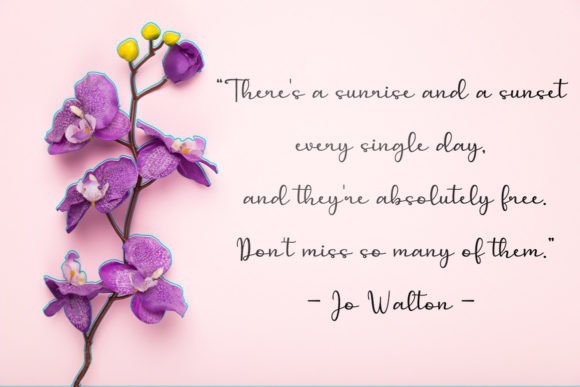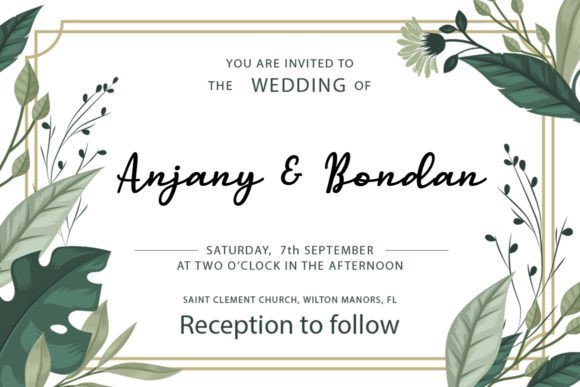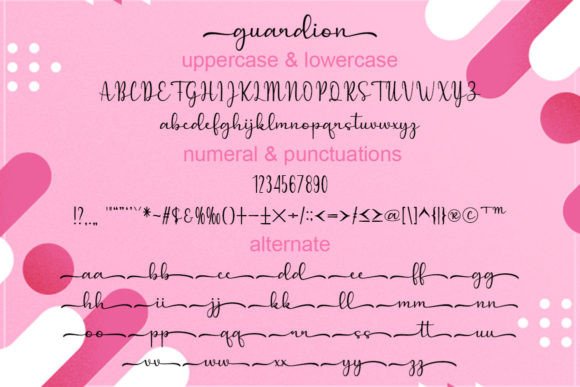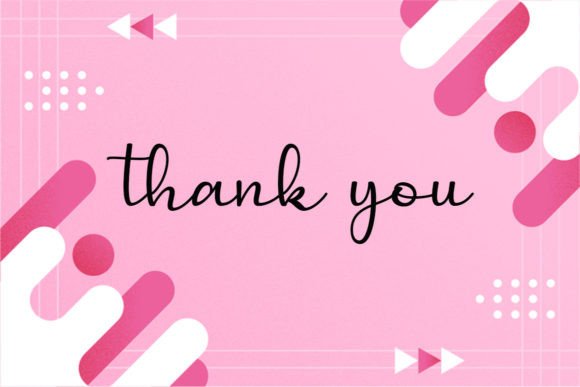
Introducing Guardion Font: The Enchanting Handwritten Font for Creative Projects
Are you looking for a font that can add a touch of magic to your creative projects? Look no further than Guardion Font, an enchanting handwritten font that is perfect for a wide range of applications. From logos and branding to quotes, clothing, tote bags, business cards, and websites, Guardion Font is the ideal choice for designers and crafters who want to take their projects to the highest level.
What Makes Guardion Font So Special?
Guardion Font is a beautifully crafted handwritten font that is designed to add a personal touch to any project. Its unique and elegant style makes it perfect for creating stunning logos, branding materials, and marketing collateral. The font is also highly versatile, making it suitable for use on a wide range of products, from clothing and tote bags to business cards and websites.
One of the standout features of Guardion Font is its PUA encoding. This means that you can access all of the glyphs and swashes with ease, giving you complete creative control over your project. Whether you’re looking to add a touch of whimsy or create a more sophisticated look, Guardion Font has everything you need to bring your vision to life.
The Benefits of Using Guardion Font
So why choose Guardion Font for your next project? Here are just a few of the benefits of using this amazing font:
- Unique and Eye-Catching Design: Guardion Font has a distinctive and captivating style that will set your project apart from the crowd.
- Highly Versatile: Whether you’re working on a logo, website, or marketing materials, Guardion Font is the perfect choice.
- Easy to Use: With PUA encoding, accessing glyphs and swashes is a breeze, making it easy to get the look you want.
- Perfect for Branding: Guardion Font is ideal for creating consistent branding across all of your marketing materials.
How to Use Guardion Font in Your Projects
Using Guardion Font in your projects is easy. Here are a few ideas to get you started:
- Logos and Branding: Use Guardion Font to create a unique and memorable logo that reflects your brand’s personality.
- Quotes and Posters: Add a touch of elegance to your quotes and posters with Guardion Font.
- Clothing and Accessories: Use Guardion Font to create stunning designs for clothing, tote bags, and other accessories.
- Websites and Marketing Materials: Add a personal touch to your website and marketing materials with Guardion Font.
Tips and Tricks for Getting the Most Out of Guardion Font
Here are a few tips and tricks for getting the most out of Guardion Font:
- Experiment with Different Sizes and Colors: Guardion Font looks great in a variety of sizes and colors, so don’t be afraid to experiment.
- Combine with Other Fonts: Guardion Font pairs well with other fonts, so try combining it with different styles to create a unique look.
- Use the Glyphs and Swashes: With PUA encoding, you can access a wide range of glyphs and swashes to add a touch of personality to your project.
If you’re looking for a font that can add a touch of magic to your creative projects, look no further than Guardion Font. With its unique and elegant style, PUA encoding, and high versatility, Guardion Font is the perfect choice for designers and crafters who want to take their projects to the highest level. So why wait? Fall in love with Guardion Font today and see the difference it can make in your work.